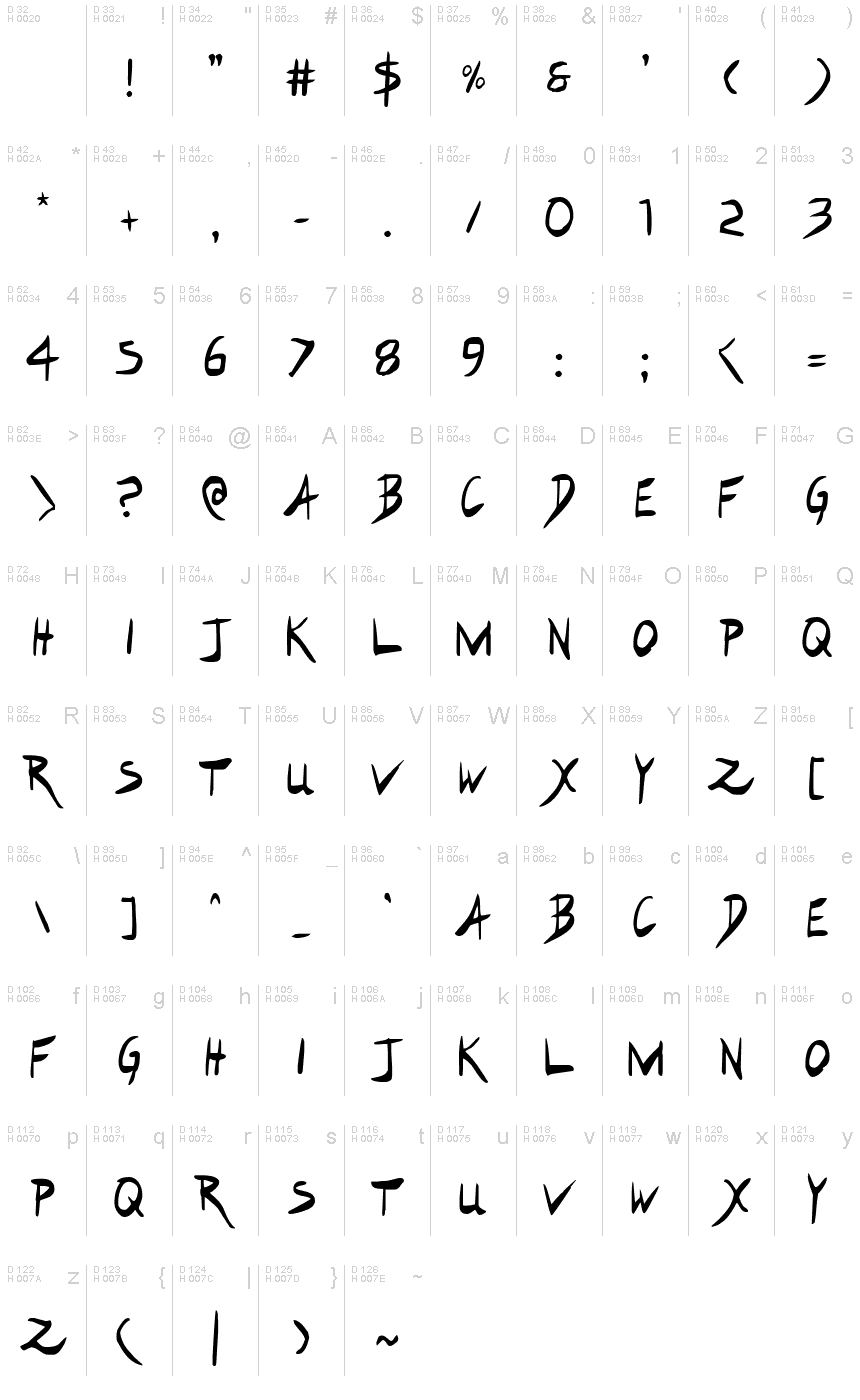
Hakturus Condensed
Hakturus Condensed, a sensational semi-bold brush font from the renowned designer Iconian Fonts. With its expressive strokes and condensed width, this font adds a touch of energy and dynamism to any project. Perfect for eye-catching logos, engaging social media graphics, or striking headlines on websites and blogs. Whether you're designing a trendy fashion brand, an edgy music album cover, or a captivating poster, Hakturus Condensed will infuse your creations with an irresistible allure. Stand out from the crowd and let this unique typeface elevate your designs to new heights of creativity and style.